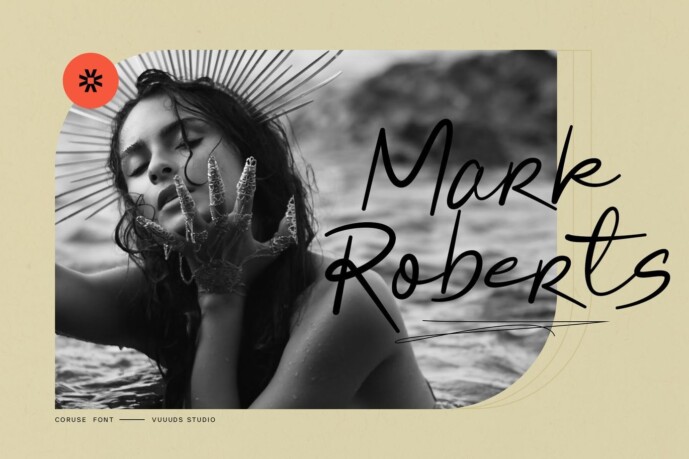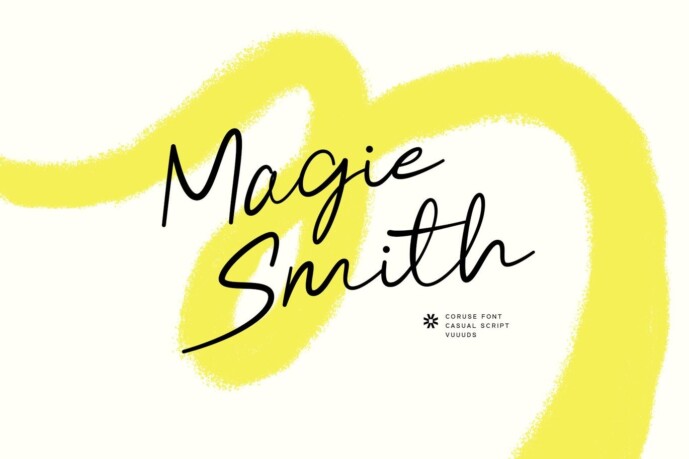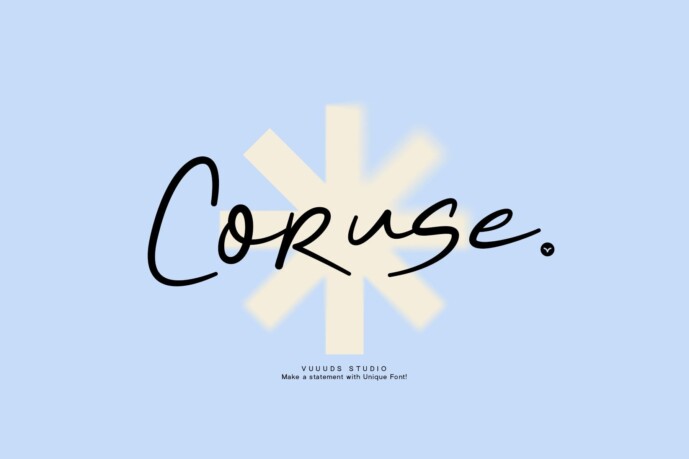
Coruse Font
Designer: vuuuds
Coruse Font is a modern and casual handwriting font, each letter has been uniquely designed. This font includes a nice group of alternate glyphs. You can access the alternate glyph via Font Book (Mac user) or Windows Character Map (Windows user).